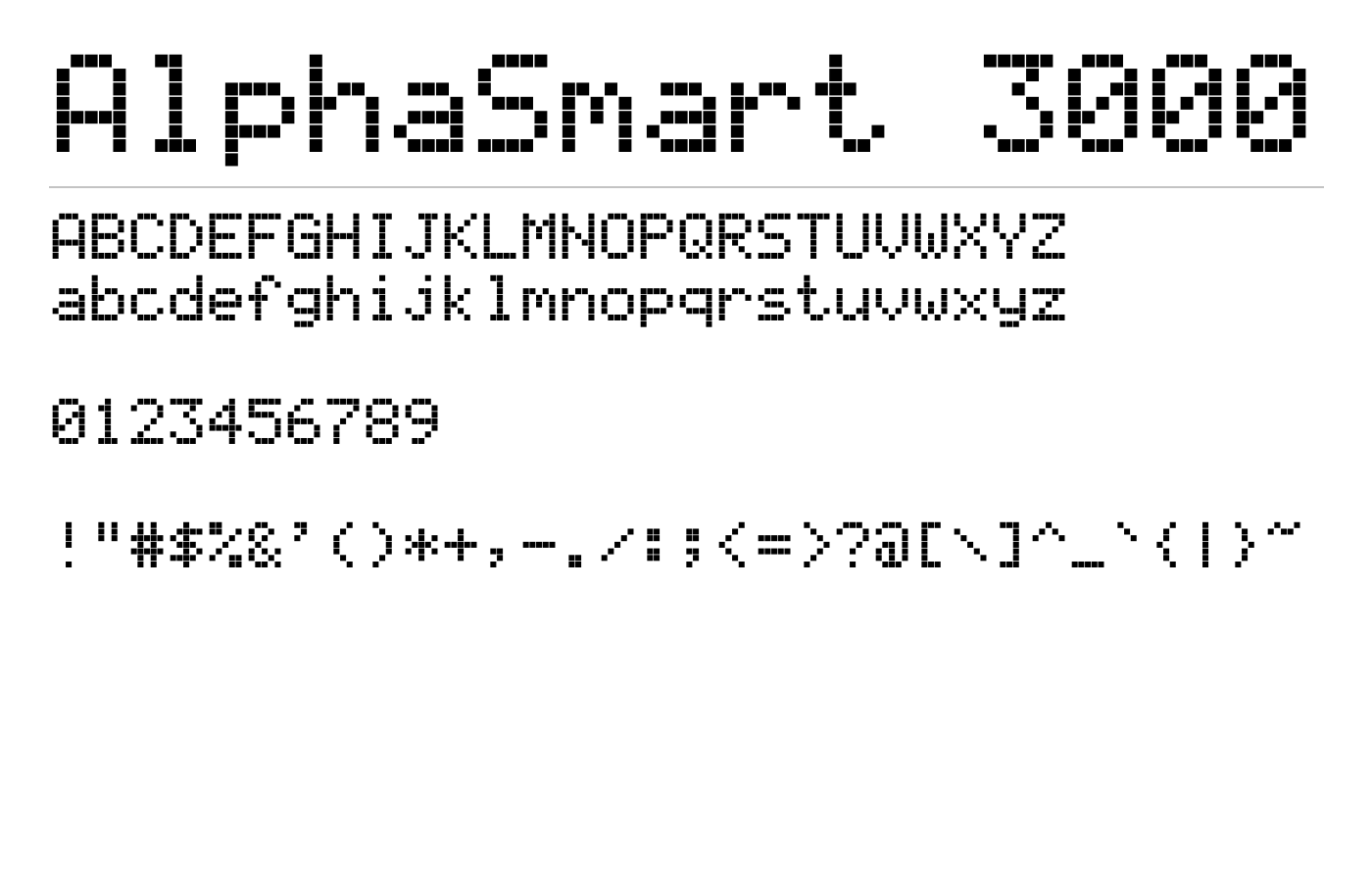
AlphaSmart 3000 is a pixelated, monospaced sans serif font characterized by its blocky, geometric letterforms made of evenly spaced square dots. This font has a digital, retro computer or early LCD display feel, offering a clear, technical look that works well for nostalgic or tech-themed designs. Its consistent weight and rigid structure make it ideal for coding environments, digital art, and vintage-inspired projects.
AlphaSmart 3000 Font
Designed by Monotype Type Drawing Office - Robin Nicholas, Patricia Saunders 1982
About AlphaSmart 3000 Font